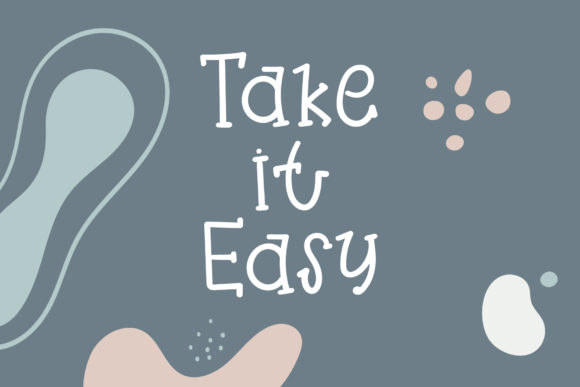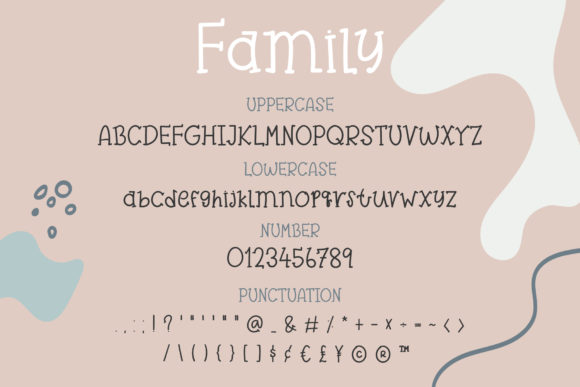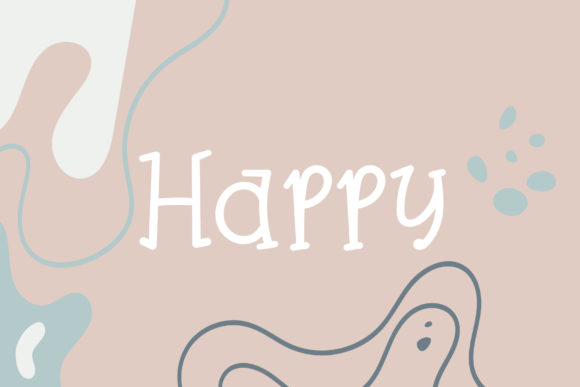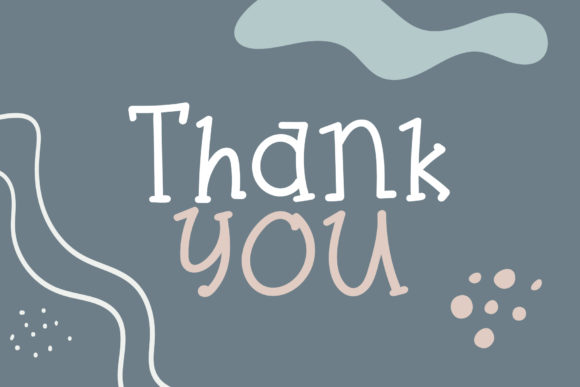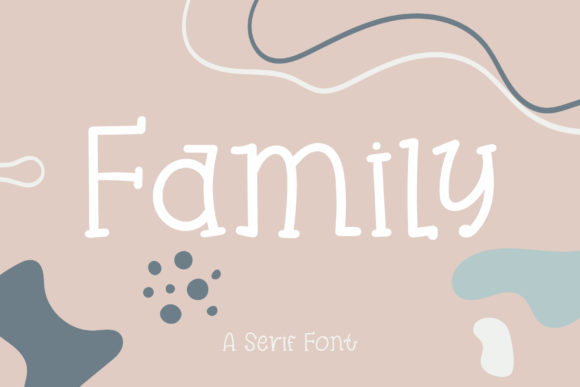
Introducing Family Font: The Quirky and Unique Serif Font for Creative Projects
Are you tired of using the same old fonts for your creative projects? Do you want to add a touch of personality and whimsy to your designs? Look no further than Family Font, a quirky and unique serif font that’s perfect for making your projects stand out. In this article, we’ll take a closer look at Family Font, its features, and how you can use it to elevate your designs.
What is Family Font?
Family Font is a serif font that’s designed to add a touch of quirkiness and personality to your projects. Its unique design makes it perfect for a wide range of creative projects, from branding and advertising to packaging and editorial design. The font features a distinctive serif style that’s both elegant and playful, making it easy to use in a variety of contexts.
Key Features of Family Font
So, what makes Family Font so special? Here are just a few of its key features:
• Unique Serif Style: Family Font features a distinctive serif style that’s both elegant and playful. The serifs are carefully designed to add a touch of personality to your text, making it perfect for creative projects.
• Quirky and Whimsical: Family Font is a quirky and whimsical font that’s perfect for adding a touch of humor and personality to your designs.
• Highly Versatile: Family Font is incredibly versatile, making it perfect for a wide range of creative projects, from branding and advertising to packaging and editorial design.
• Easy to Read: Despite its quirky design, Family Font is still easy to read, making it perfect for body text and headlines.
How to Use Family Font in Your Creative Projects
So, how can you use Family Font in your creative projects? Here are just a few ideas to get you started:
• Branding and Advertising: Use Family Font to create eye-catching logos, advertisements, and marketing materials that stand out from the crowd.
• Packaging Design: Add a touch of personality to your packaging designs with Family Font. It’s perfect for labels, tags, and other packaging materials.
• Editorial Design: Use Family Font to add a touch of whimsy to your editorial designs, such as magazines, newspapers, and books.
• Digital Design: Family Font is also perfect for digital design, including website headers, social media graphics, and more.
Tips for Getting the Most Out of Family Font
Here are just a few tips for getting the most out of Family Font:
• Experiment with Different Sizes: Family Font looks great in a variety of sizes, from small body text to large headlines. Experiment with different sizes to find the one that works best for your project.
• Pair it with Other Fonts: Family Font pairs well with a variety of other fonts, including sans serif fonts and script fonts. Experiment with different pairings to find the one that works best for your project.
• Use it to Add Emphasis: Family Font is perfect for adding emphasis to your text. Use it to highlight important information or to add a touch of personality to your designs.
Font Name Family Font
Author Wanida Toffy
Family Font is a quirky and unique serif font that’s perfect for creative projects. Its distinctive design makes it easy to use in a variety of contexts, from branding and advertising to packaging and editorial design. With its highly versatile design and easy-to-read style, Family Font is perfect for designers and crafters who want to add a touch of personality to their projects. So why not give it a try and see how it can elevate your designs?
• Is Family Font easy to read?: Yes, Family Font is designed to be easy to read, making it perfect for body text and headlines.